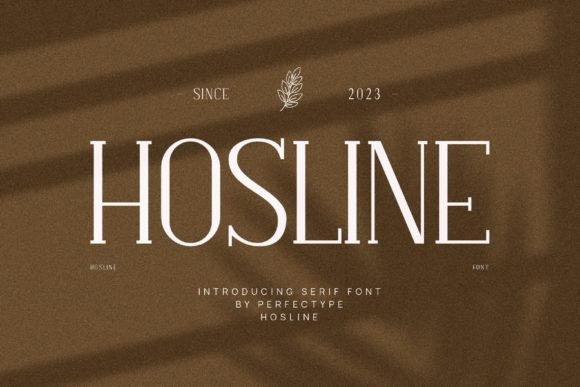
Introducing Hosline Font, the epitome of elegance and modernity in the world of typography. Crafted with utmost precision by Perfectype, this exquisite serif typeface is a must-have for anyone seeking a font that truly stands out.
With its classy and contemporary design, Hosline is perfect for a wide range of applications. Whether you're working on a branding project, designing a logo, creating wedding invitations, or even crafting social media posts, this font will effortlessly elevate your work to new heights.
One of the key strengths of Hosline lies in its versatility. It seamlessly adapts to any creative endeavor, making it an ideal choice for advertisements, product packaging, labels, and photography projects. The font's clean lines and impeccable readability ensure that your message will be delivered with utmost clarity and professionalism.
Capturing attention and leaving a lasting impression are essential in today's fast-paced digital world. Hosline Font does just that, with its captivating charm and eye-catching appeal. Its modern style adds a touch of sophistication to any project, making it impossible for viewers to look away.
But Hosline isn't just about aesthetics. It is meticulously designed to enhance user experience and ensure effortless legibility. The font's high level of readability guarantees that your content will be easily consumed by your target audience, allowing your message to shine through without any distractions.
Indulge in the rich and timeless beauty of Hosline Font. Let it inspire your creativity and unlock endless possibilities. Whether you're a seasoned designer or just starting your creative journey, this font will empower you to create stunning visuals that leave a lasting impact.
Step into the world of modernity and elegance with Hosline Font. Your projects deserve nothing less than the best, and this font is here to deliver. Experience the perfect blend of sophistication and readability, and take your designs to the next level. Download Hosline Font today and let your creativity soar!